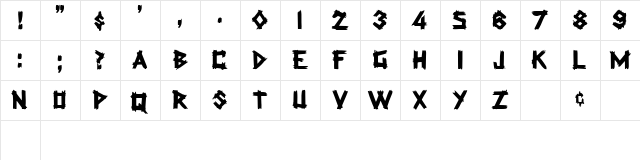
Ferlengetti Regular
Design Context for Ferlengetti Typeface
Ferlengetti is a composed and adaptable typeface that performs quietly and consistently across a wide range of design contexts.